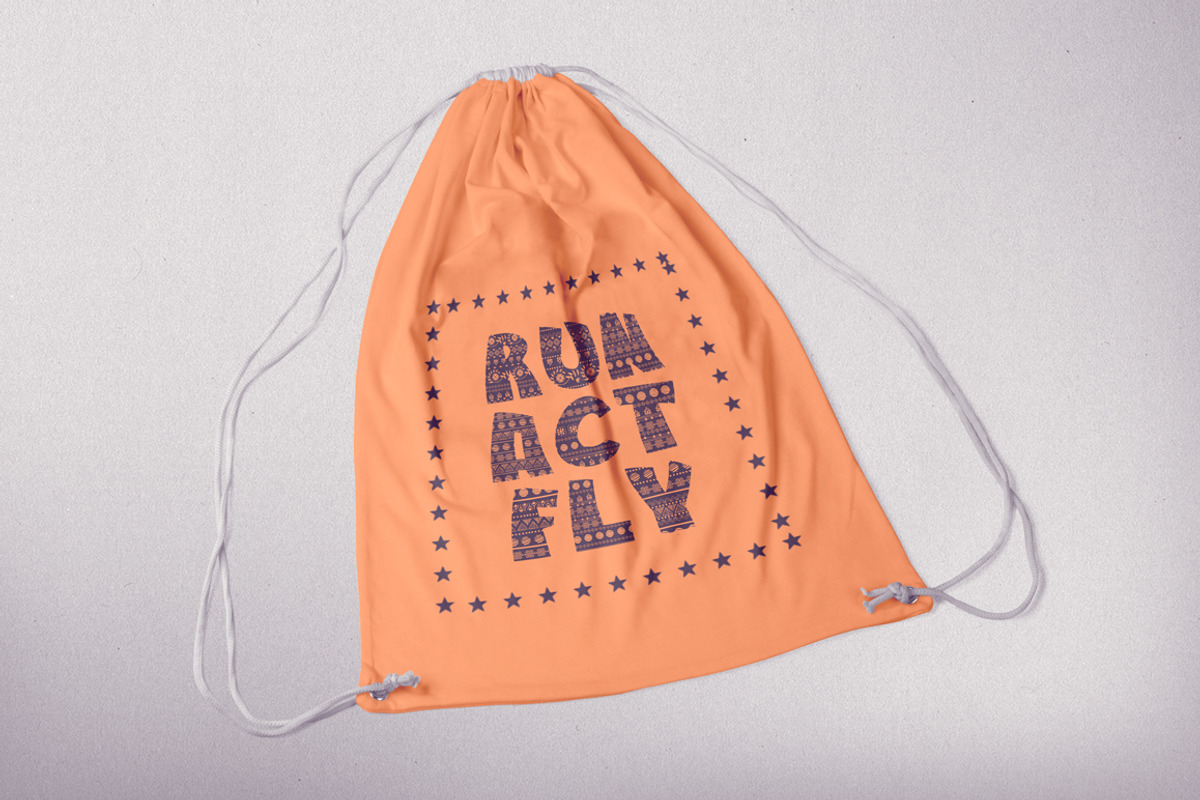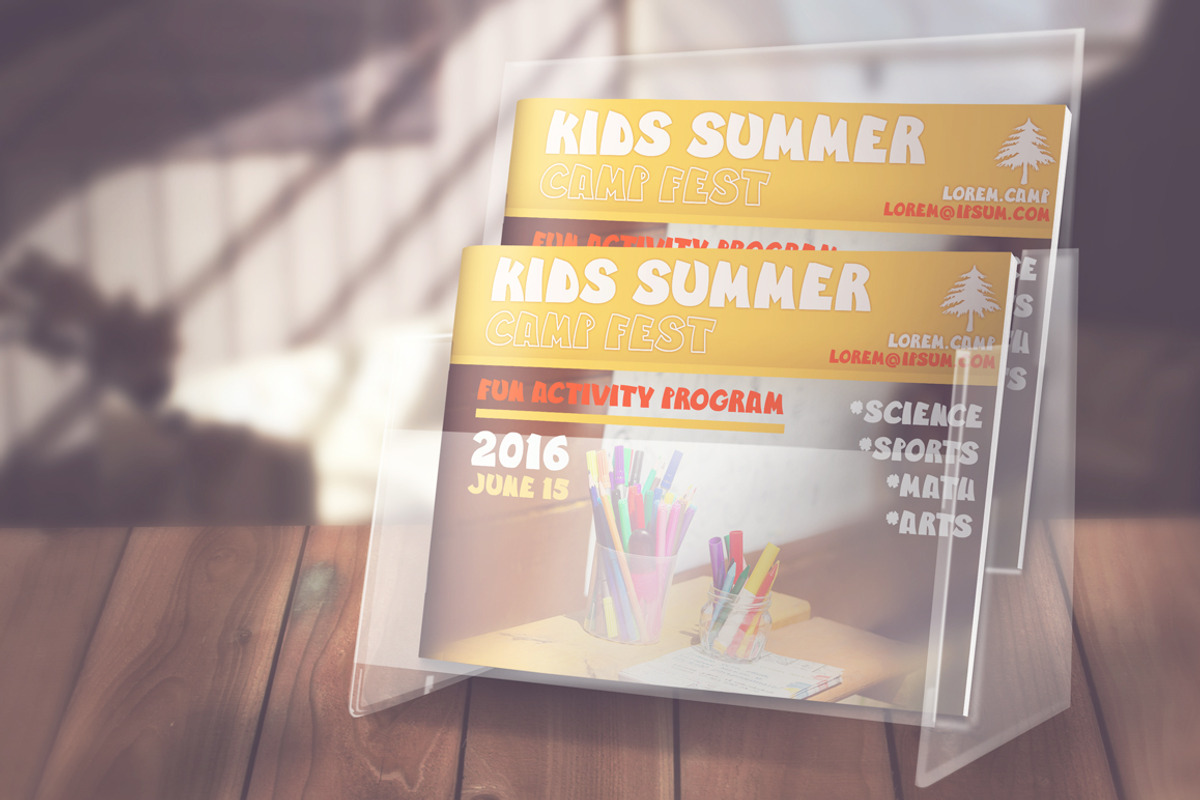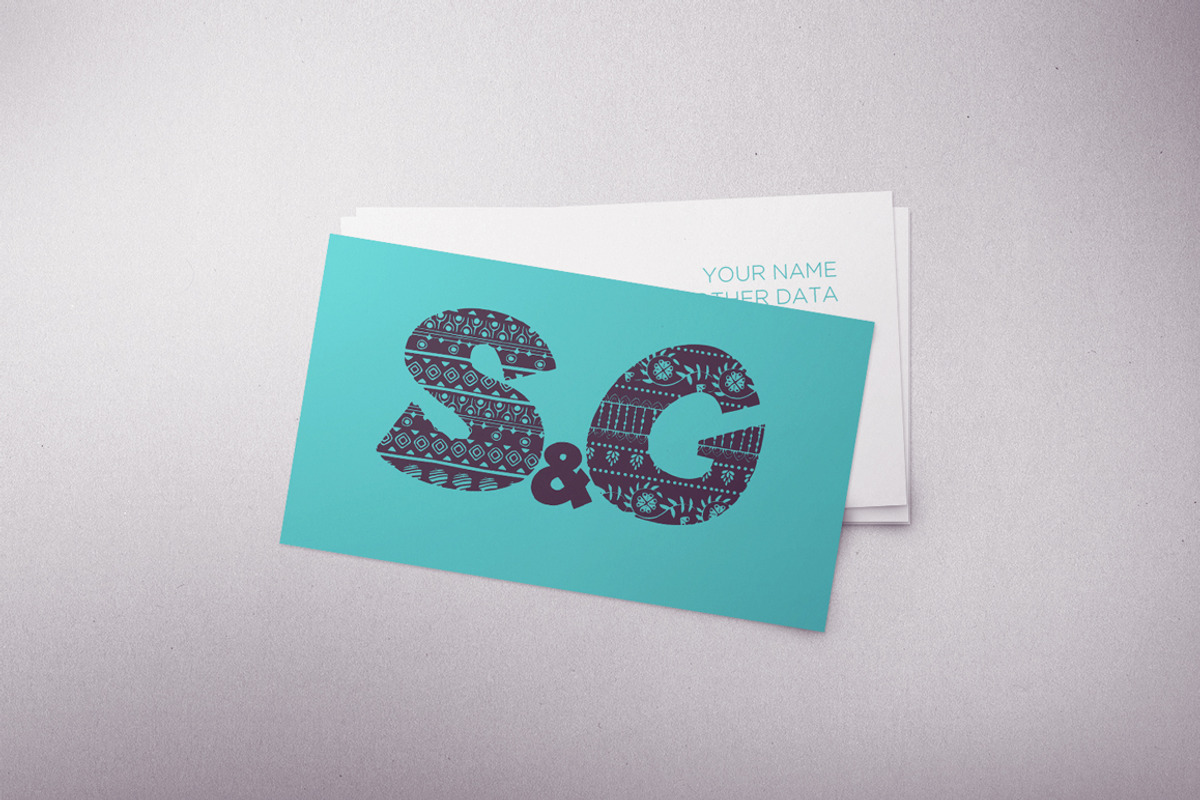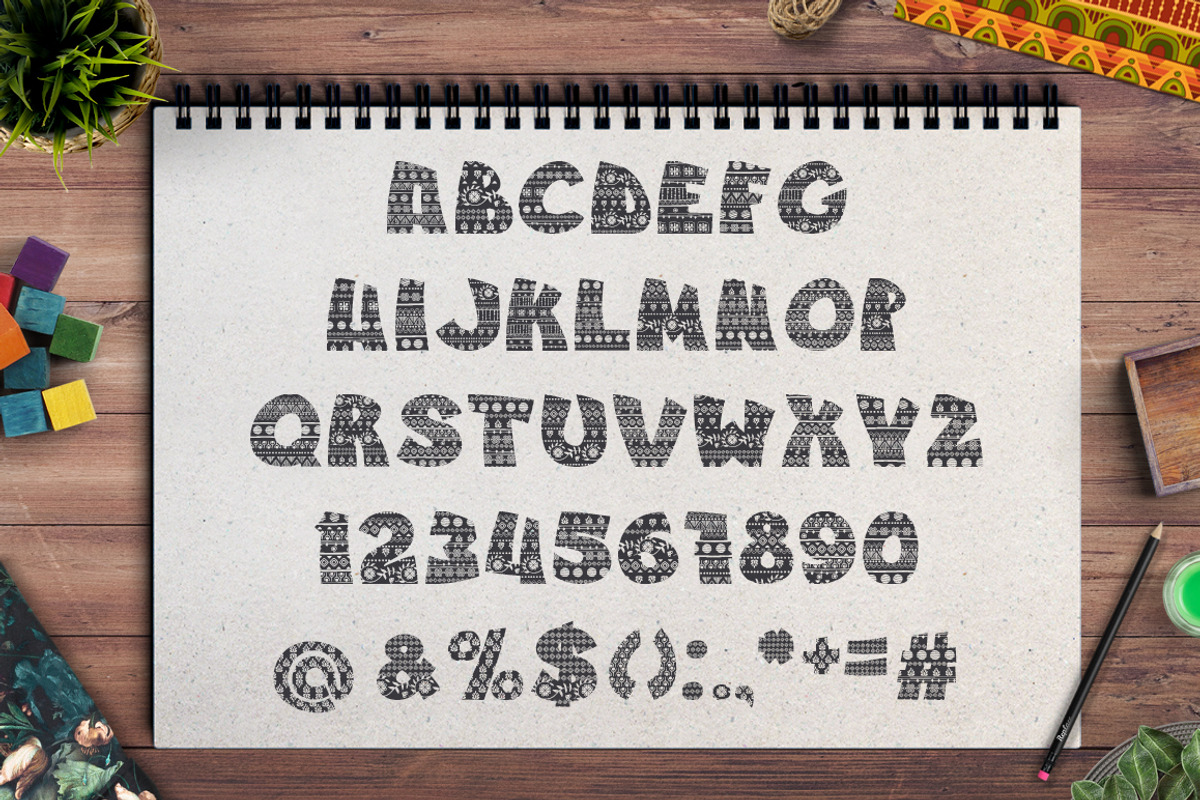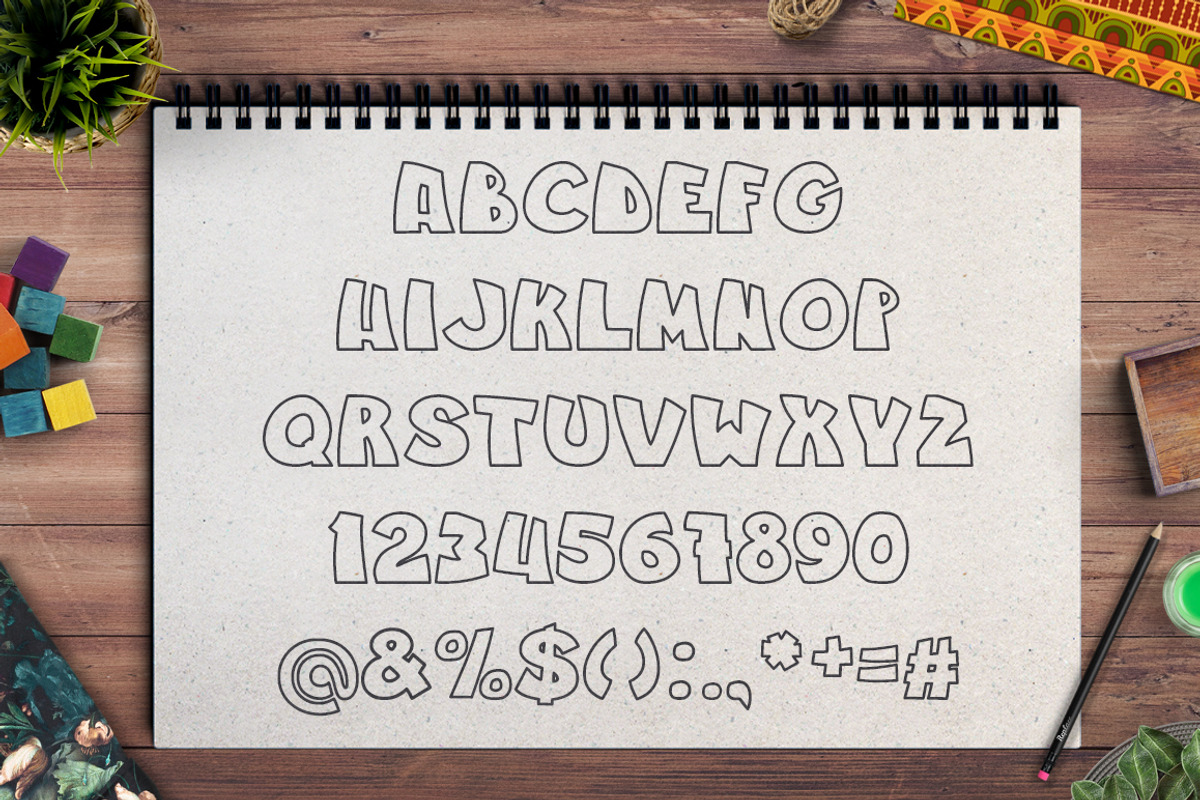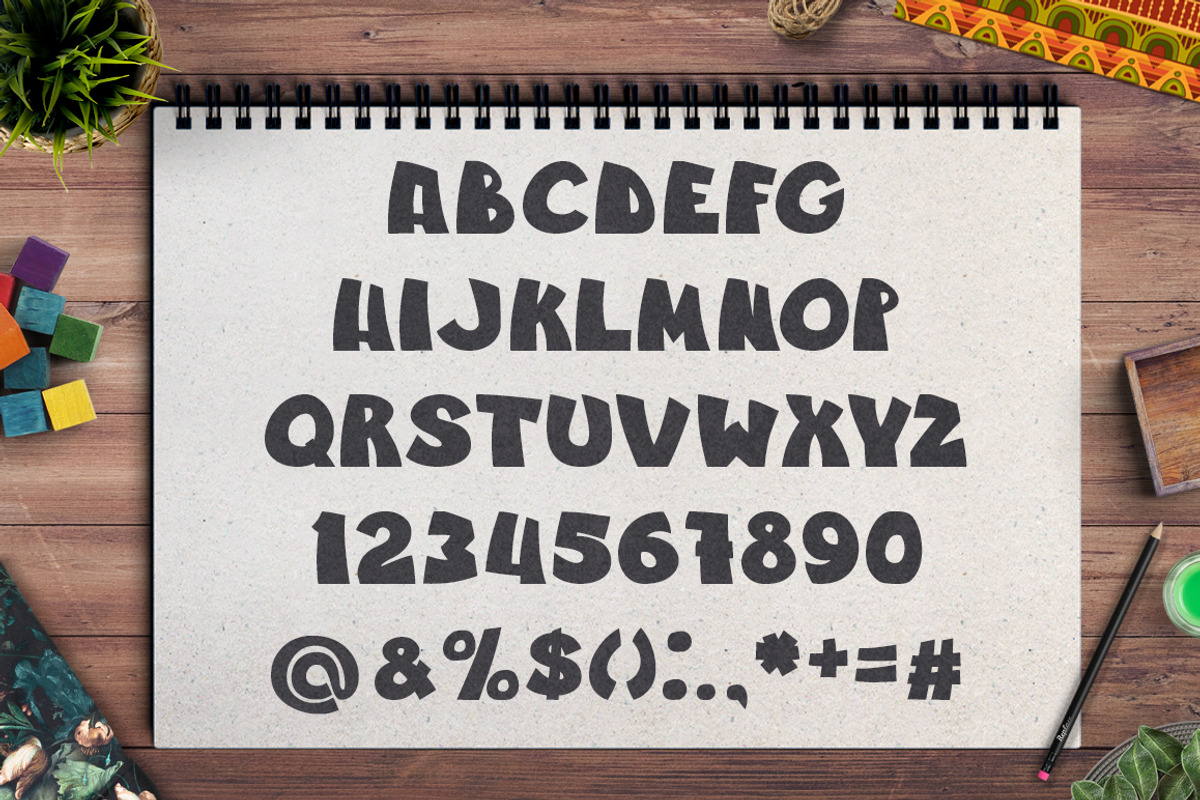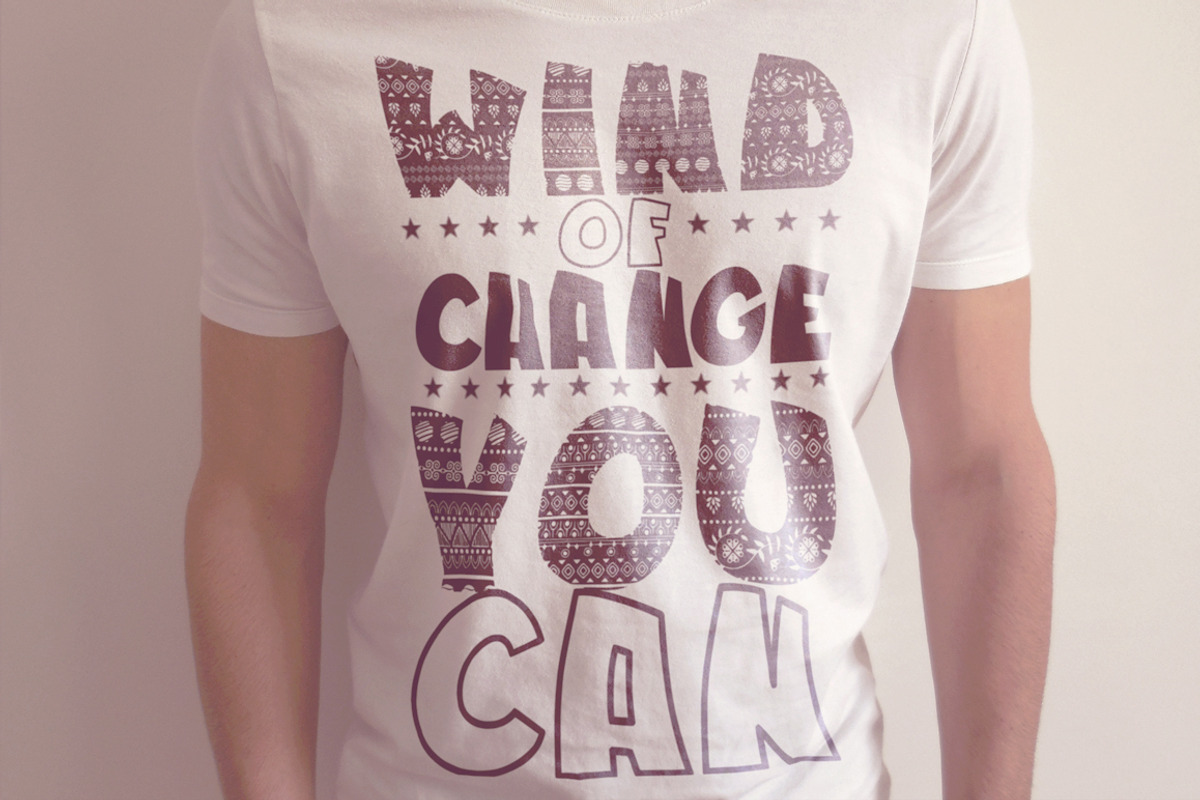
3 funny fonts JUNGLE
3 funny fonts JUNGLE by SwetTS is a font selected for branding, posters, packaging, typography.
Why 3 funny fonts JUNGLE is worth a look
3 funny fonts JUNGLE by SwetTS fits naturally into Branding, posters, packaging, typography.